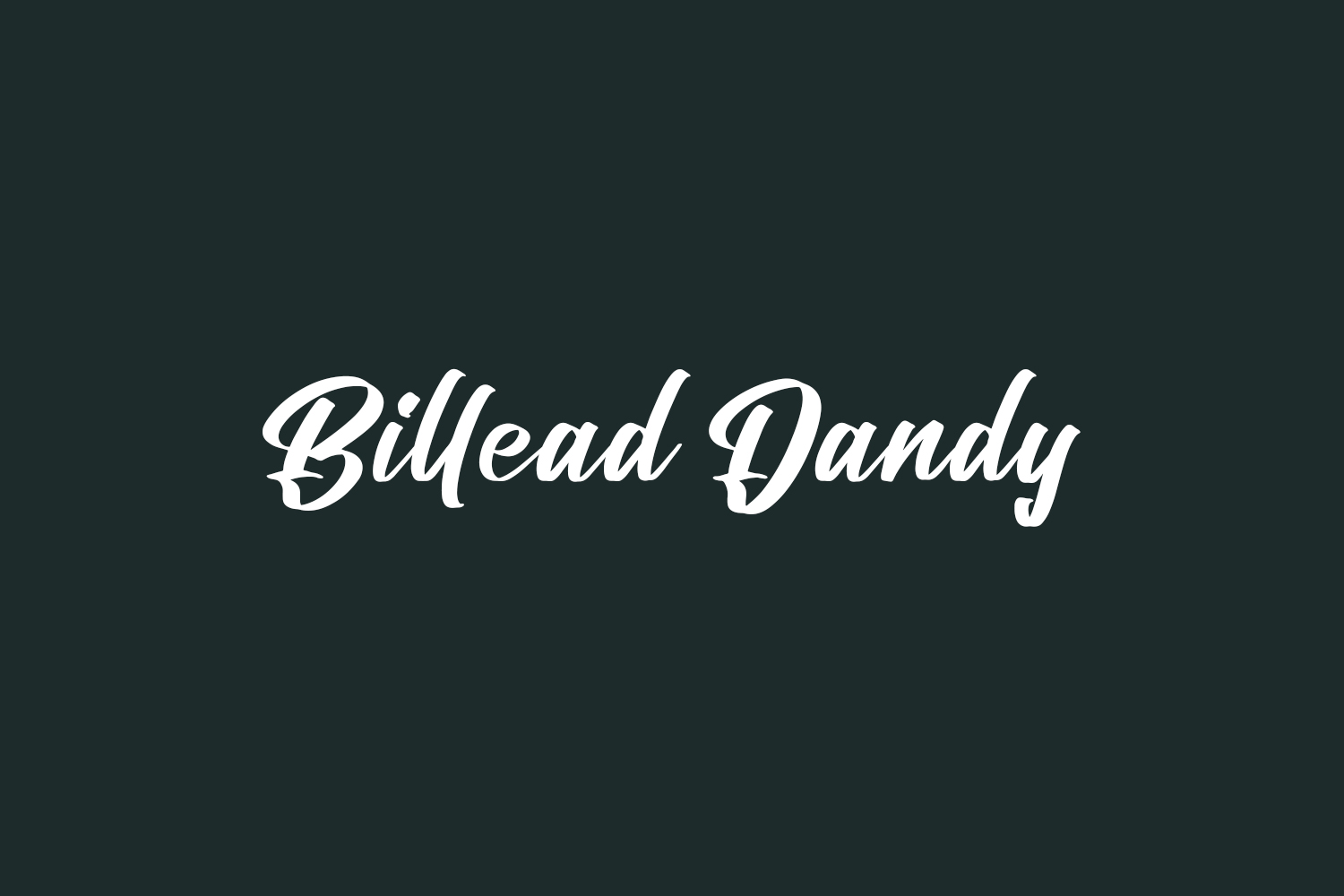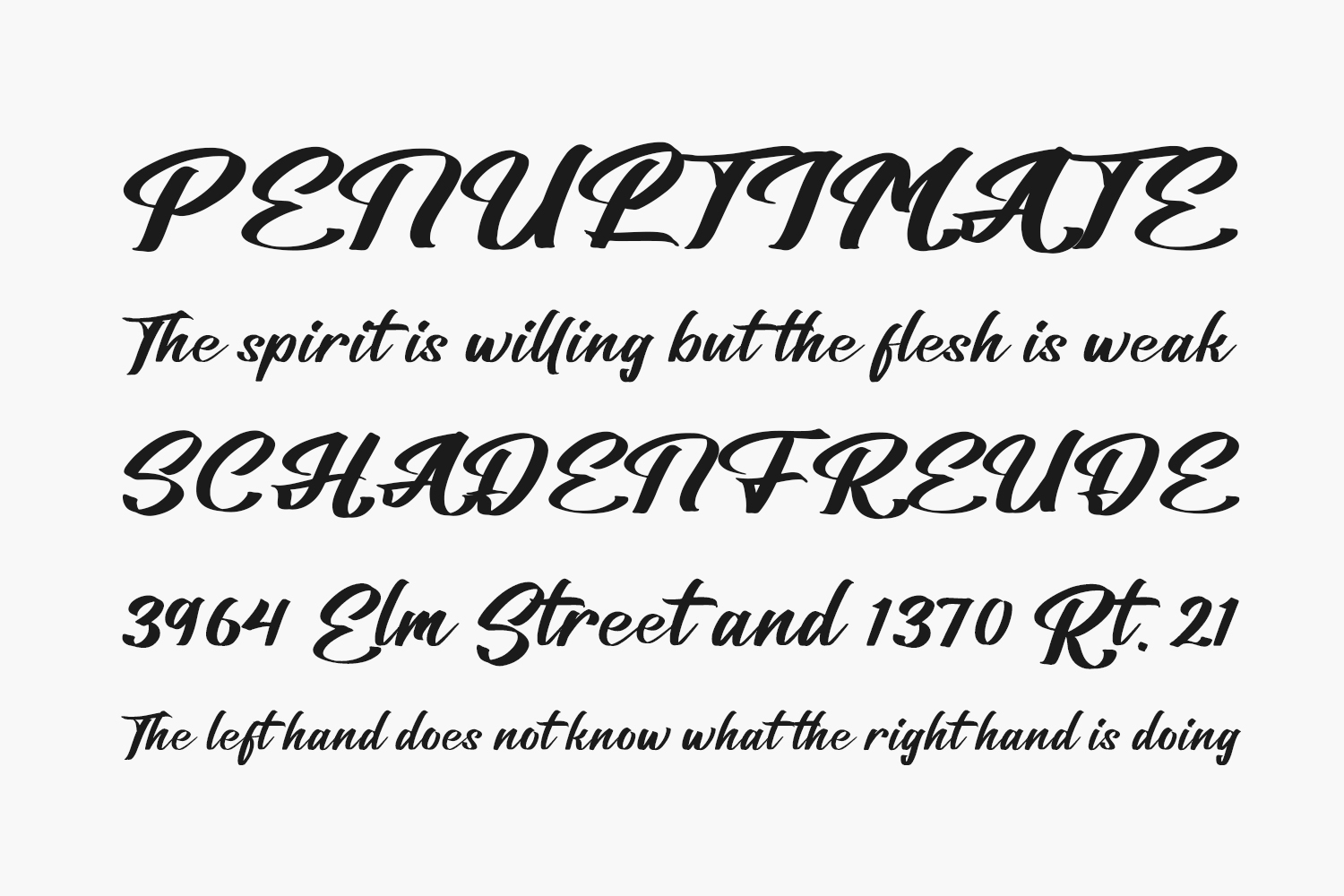
Billead Dandy Free Font is a lovely script font featuring charming, playful characters that seem to dance along the baseline. Add this font to your most creative ideas, and notice how it makes them stand out!